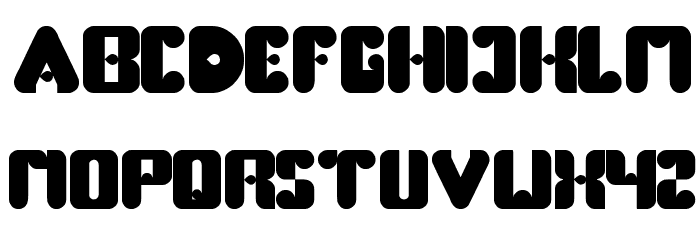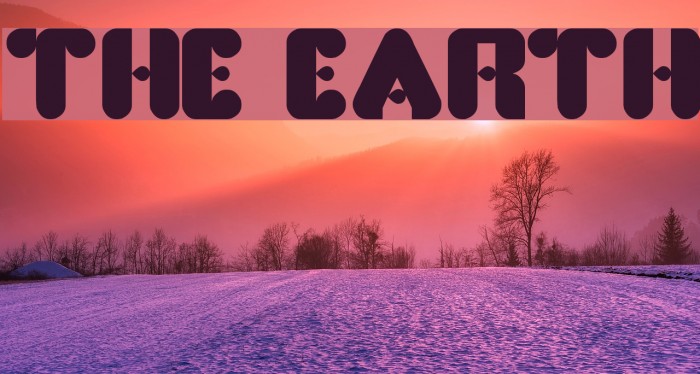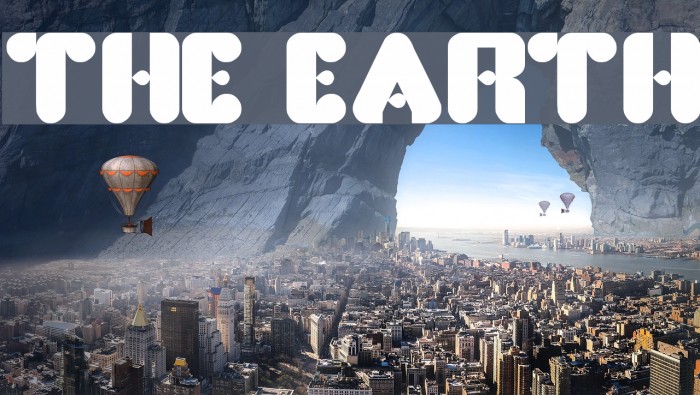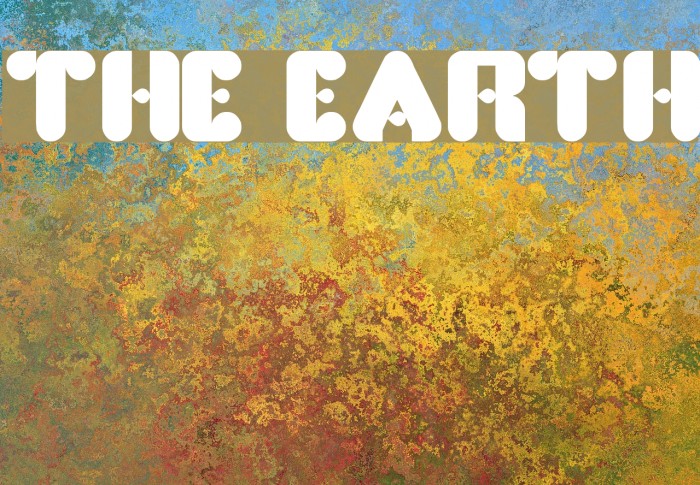
the earth Font
This font features a bold and geometric style with a distinct, futuristic appearance. Each character is constructed with thick, rounded shapes and unique cut-out details that create a sense of depth and dimension. The letters are uniform in height and width, contributing to a cohesive and structured look. The design is highly stylized, making it ideal for attention-grabbing headlines or branding that requires a modern and edgy aesthetic. The font's boldness and unique character shapes make it stand out, while its geometric precision ensures readability at larger sizes.
A bold, geometric font with futuristic cut-out details.
- Proposed Projects: Ideal for sci-fi themed posters, modern branding, video game titles, and futuristic product packaging.
- Overall Style: Futuristic, Modern